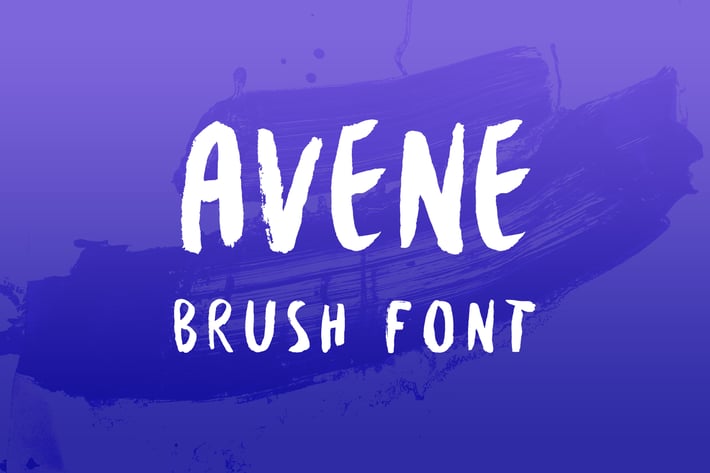
Avene PRO Brush Font
We are proud to present to you a brand new brush font made by Krisjanis Mezulis. Avene PRO is a handwritten font that contains 350 characters, with it's own personality, looks great for any kind of project and gives a unique touch for every kind of work.
The font features both uppercase and lovercase letters, so you will have a wide range of characters to use in tyographic work. It has updated open type features and adwanced kerning. Multiple language support.